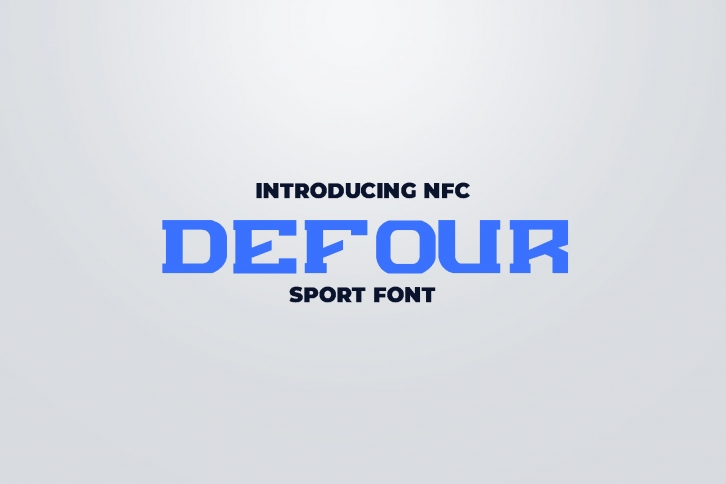
DEFOUR Sport Display Font Download
DEFOUR Sport Display is a trendy and unique font with an authentic style. It was designed by Ovoz shop and it's a great choice for creative people who need such a font. It was released on November 12, 2019 and the file size is 8.83 MB. DEFOUR Sport Display will add an organic vibe to any design idea!